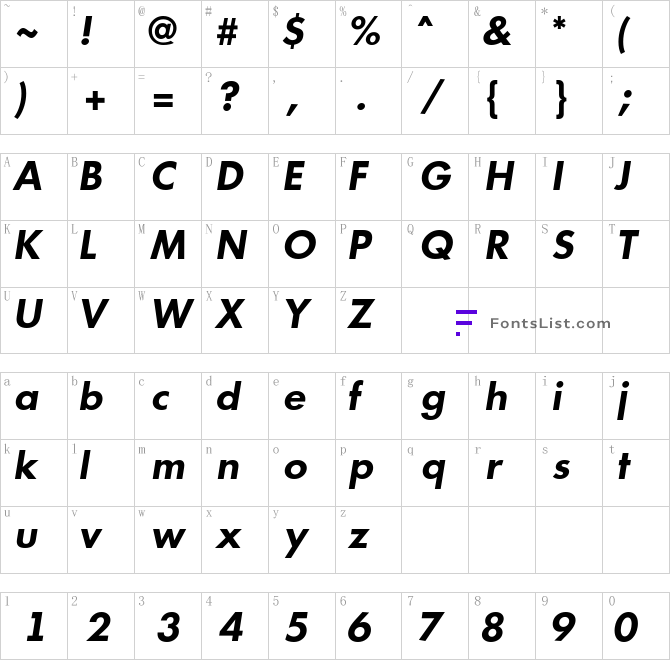
- Font Name:a_FuturicaBs
- Subfamily:BoldItalic
- Subfamily:Macromedia Fontographer 4.1 a_FuturicaBs BoldItalic
- Full Name:a_FuturicaBs BoldItalic
- Version:Ver.001.002 ( 19.06.97)
a_FuturicaBs-BoldItalic.ttf is a very beautiful artistic font, a_FuturicaBs-BoldItalic.ttf is widely used in the design and printing of various books and pictures,a_FuturicaBs-BoldItalic.ttf has a strong visual impact,a_FuturicaBs-BoldItalic.ttf is a commonly used font in newspapers, magazines and books, and is used in posters, e-commerce Poster design, store design, logo design, font design and other fields.a_FuturicaBs-BoldItalic.